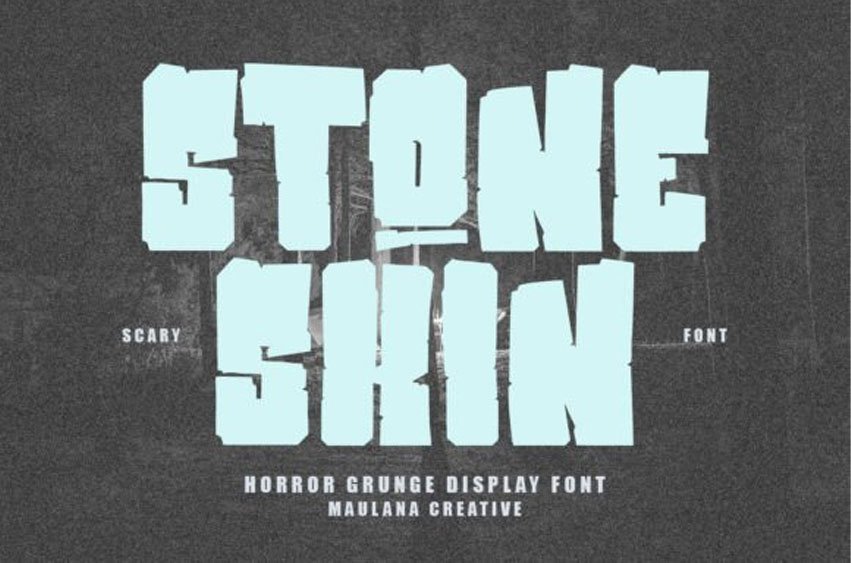
Stone Skin Font is a gritty, horror-themed font with a rough, grunge texture.
Its jagged edges and worn look make it perfect for adding a creepy, unsettling vibe to your designs.